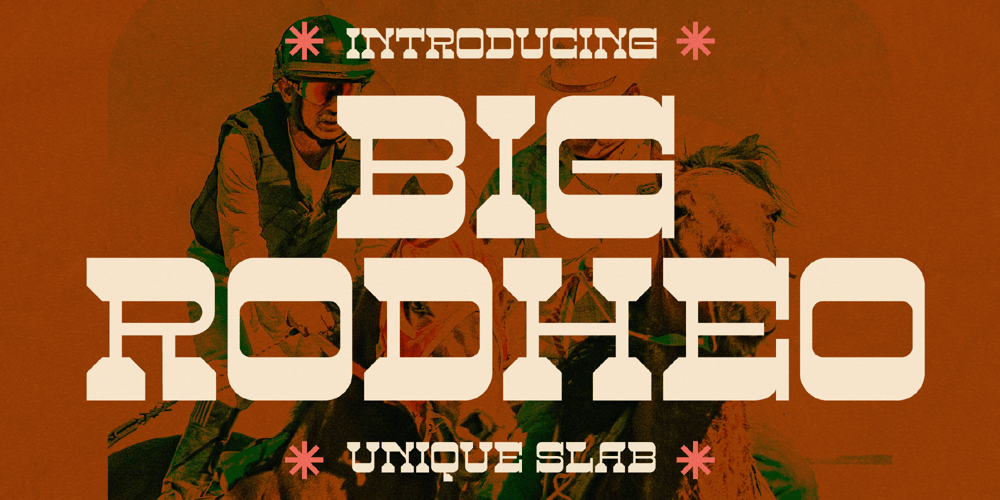
Big Rodheo Font Family was designed by Heru Utama Putra and published by Letterena Studios. Big Rodheo contains 2 styles and family package options. Big Rodheo is a modern and classic serif typeface that has its own unique style and stylish look.This font is perfect for elegant and luxurious logos, book or movie title designs, fashion brands, magazines, clothes, lettering, quotes, and so much more.